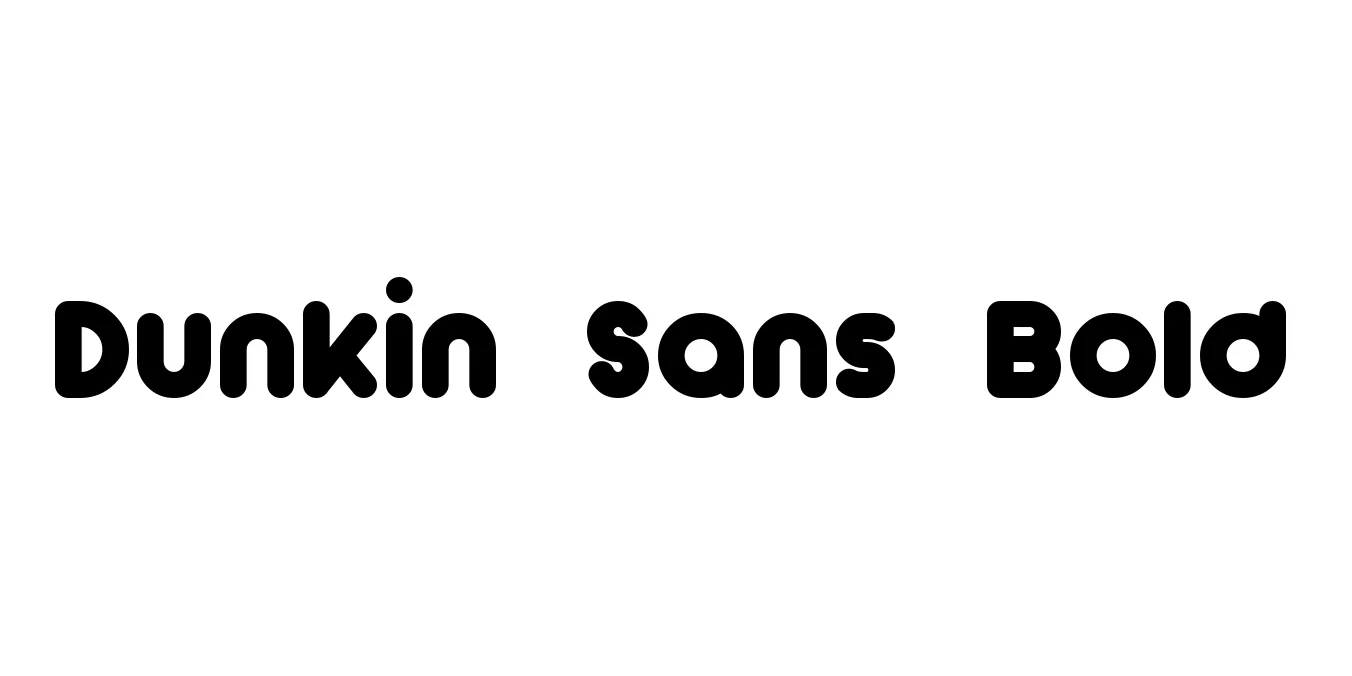
Dunkin Sans Bold
Designed by Jones Knowles Ritchie (JKR)
| Font Name | Dunkin Sans |
| Designer | Jones Knowles Ritchie (JKR) |
| Similar Fonts | Frankfurter, VAG Rounded, Arial Rounded, Blippo, Comfortaa |
Dunkin Sans Bold was introduced as a cornerstone of the 2018 rebranding of the global coffee and donut chain, Dunkin'. Developed to modernize the brand's visual identity, this typeface evolved from the classic Frankfurter font, which had been the brand's hallmark for decades. The design team focused on creating a cleaner, more streamlined sans-serif that retains the iconic 'sausage-link' rounded corners while improving legibility across digital interfaces and mobile applications.
The Bold weight is specifically engineered for high-impact visual communication, offering a perfect balance between thick, confident strokes and friendly, approachable curves. Because it is optimized for brand recognition, it performs exceptionally well in large formats like storefront signage and billboards. The typeface has become synonymous with contemporary fast-casual dining aesthetics, blending heritage with a modern, fast-paced consumer lifestyle.
Dunkin Sans Bold Best Uses
Creating a friendly and recognizable identity for food and beverage companies.
High-visibility outdoor advertisements and storefront headers.
Product labels that require a warm, appetizing, and approachable look.
Bold, eye-catching headlines for marketing graphics and promotional posts.